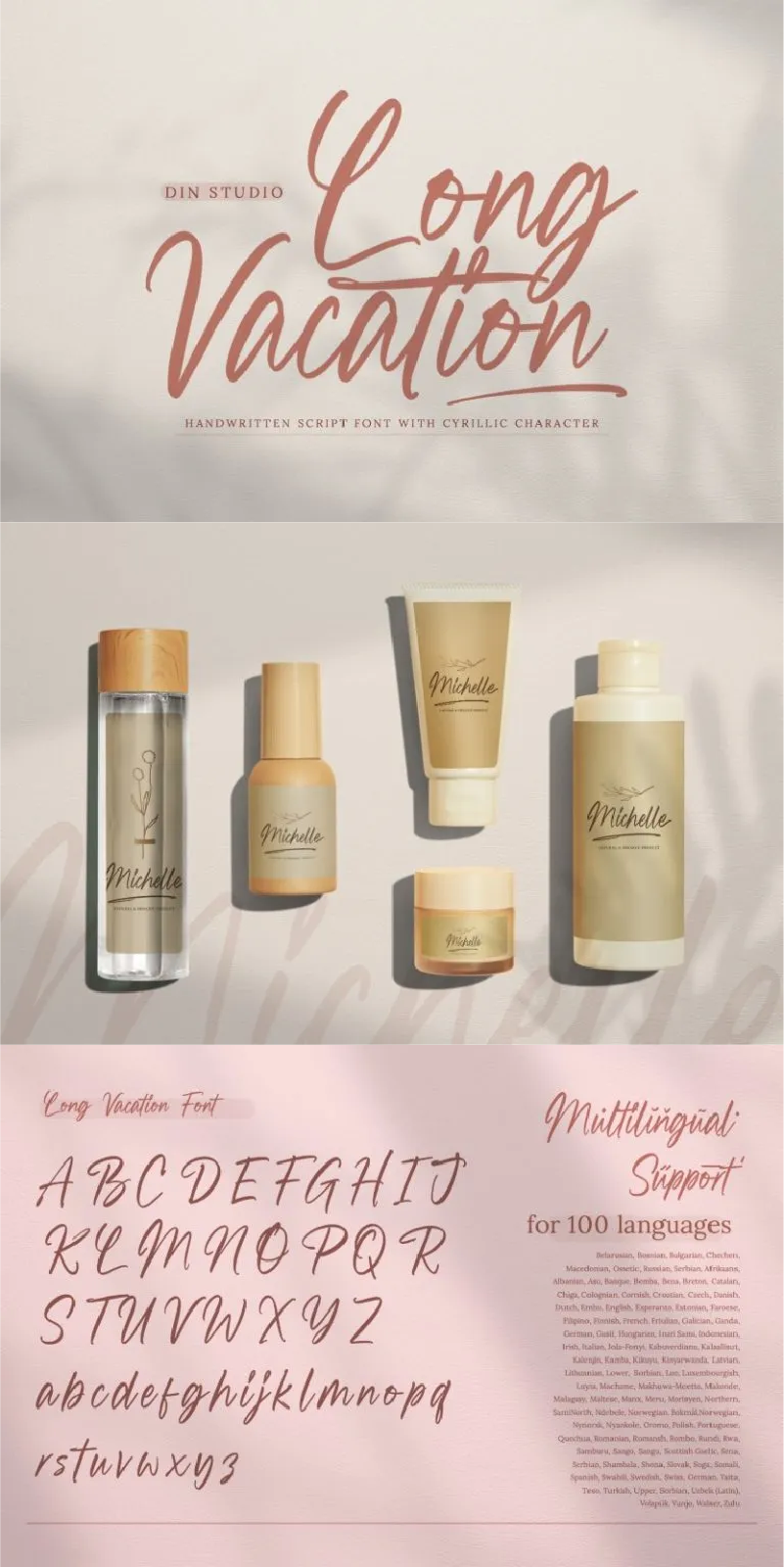
Long Vacation Font
About Long Vacation
Long Vacation is a visually interesting handwritten font showing a unique handwriting style giving the natural, lovely nuances on your designs. The flowing letters are interconnected and the scratches that connect the letters make the font look more natural. Details on each letter and curves on the edges show high contrasts. Due to its great legibility, you can apply this font to both big and small text sizes. Additionally, enjoy the features available here.
Long Vacation fits best for various design projects, such as brandings, posters, banners, invitations, greeting cards, magazine covers, quotes, printed products, merchandise, logos, social media, etc. Find out more ways to use this font by taking a look at the font preview.